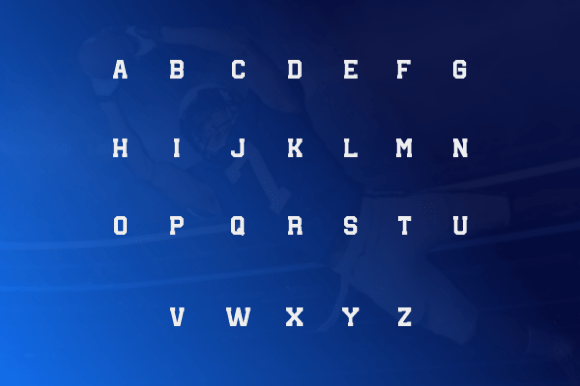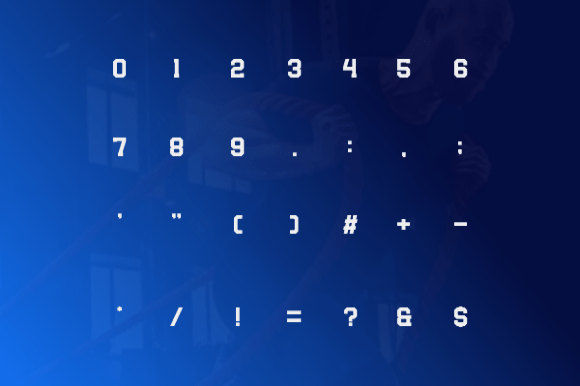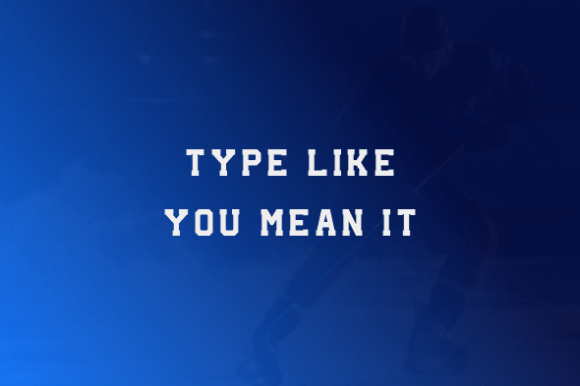
Introduction to Marginton Font
Have you ever found yourself stuck in a creative rut, unable to convey the excitement and energy of a sports moment through design? Maybe you’re trying to create a poster for a championship game, but the words just aren’t coming together. That’s where the Marginton Font comes in – a game-changer for designers looking to add a touch of dynamism to their projects.
With its bold, powerful style, Marginton Font is the perfect design resource for anyone looking to make a statement. Whether you’re working on a high-quality sports-themed design, or simply need a font that can hold its own against a transparent background, Marginton Font is sure to deliver. And the best part? It’s available for free download, making it an invaluable addition to any designer’s toolkit.
Key Features of Marginton Font
- High-quality design for creative projects, perfect for use in various contexts.
- Transparent background, allowing for seamless integration into any design.
- Resolution-independent, ensuring crisp and clear text display regardless of the screen resolution.
- Unique, creative design that can add a touch of elegance and sophistication to any project.
Honest Review: Marginton Font
I recently had the chance to work with the Marginton Font, and I must say it’s a game-changer for any creative project that requires a touch of elegance. This high-quality font is a great design resource that can elevate your work to the next level.
- ✨ Transparent background, making it easy to work with
- ✨ Great for digital design, print materials, and more
One of the things that stood out to me about the Marginton Font is its versatility. It’s a great choice for a variety of design projects, from digital design to print materials. And with a transparent background, it’s easy to work with and integrate into your design.
- ⚠️ Limited character set, may not be suitable for complex text-based projects
- ⚠️ Not ideal for projects that require a lot of bold, attention-grabbing text
Overall, I’m really impressed with the Marginton Font. It’s a great design resource that’s perfect for any creative project that requires a touch of elegance. And the best part? It’s available for free download, making it an accessible option for designers of all levels.
How to Use Marginton Font
The Marginton Font is a high-quality, versatile design resource ideal for creative projects. Its transparent background and elegant style make it a great addition to any design project.
Tips for Getting the Most Out of Marginton Font
Use the Marginton Font in combination with other design elements to create a cohesive and visually appealing design. Experiment with different font sizes, colors, and styles to achieve the desired effect.
The Marginton Font is ideal for:
- Website headers and footers
Alternatives to Marginton Font
The Great Vibes Font is a high-quality, elegant script font perfect for creative projects that require a touch of sophistication. It features a transparent background, making it ideal for use on images or designs with complex backgrounds. When to use: Wedding invitations, luxury brand logos, or any high-end design project. It compares to Marginton Font by offering a more refined and polished look.
The Pacifico Font is a popular choice for designers looking for a clean and modern font. It’s ideal for use in creative projects that require a high level of readability. When to use: Brochures, magazines, or any design that requires clear communication. It compares to Marginton Font by offering a more minimalist and straightforward approach.
The Dancing Script Font is a beautiful, handwritten font perfect for creative projects that require a personal touch. It features a transparent background, making it ideal for use on images or designs with complex backgrounds. When to use: Invitations, greeting cards, or any design that requires a touch of whimsy. It compares to Marginton Font by offering a more playful and expressive look.
The Alex Brush Font is a high-quality, elegant script font perfect for creative projects that require a touch of sophistication. It features a transparent background, making it ideal for use on images or designs with complex backgrounds. When to use: Luxury brand logos, high-end design projects, or any design that requires a refined look. It compares to Marginton Font by offering a more refined and polished look.